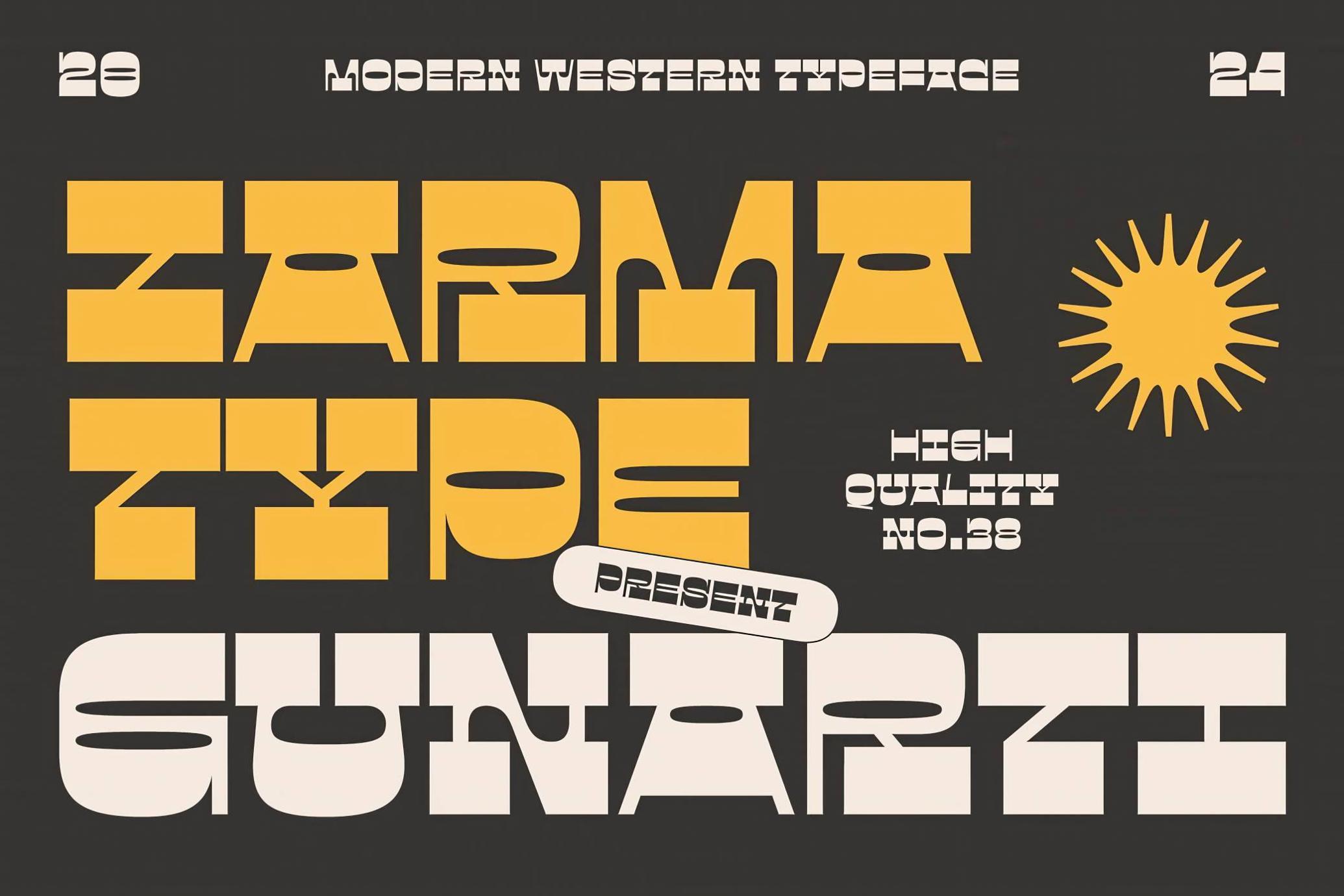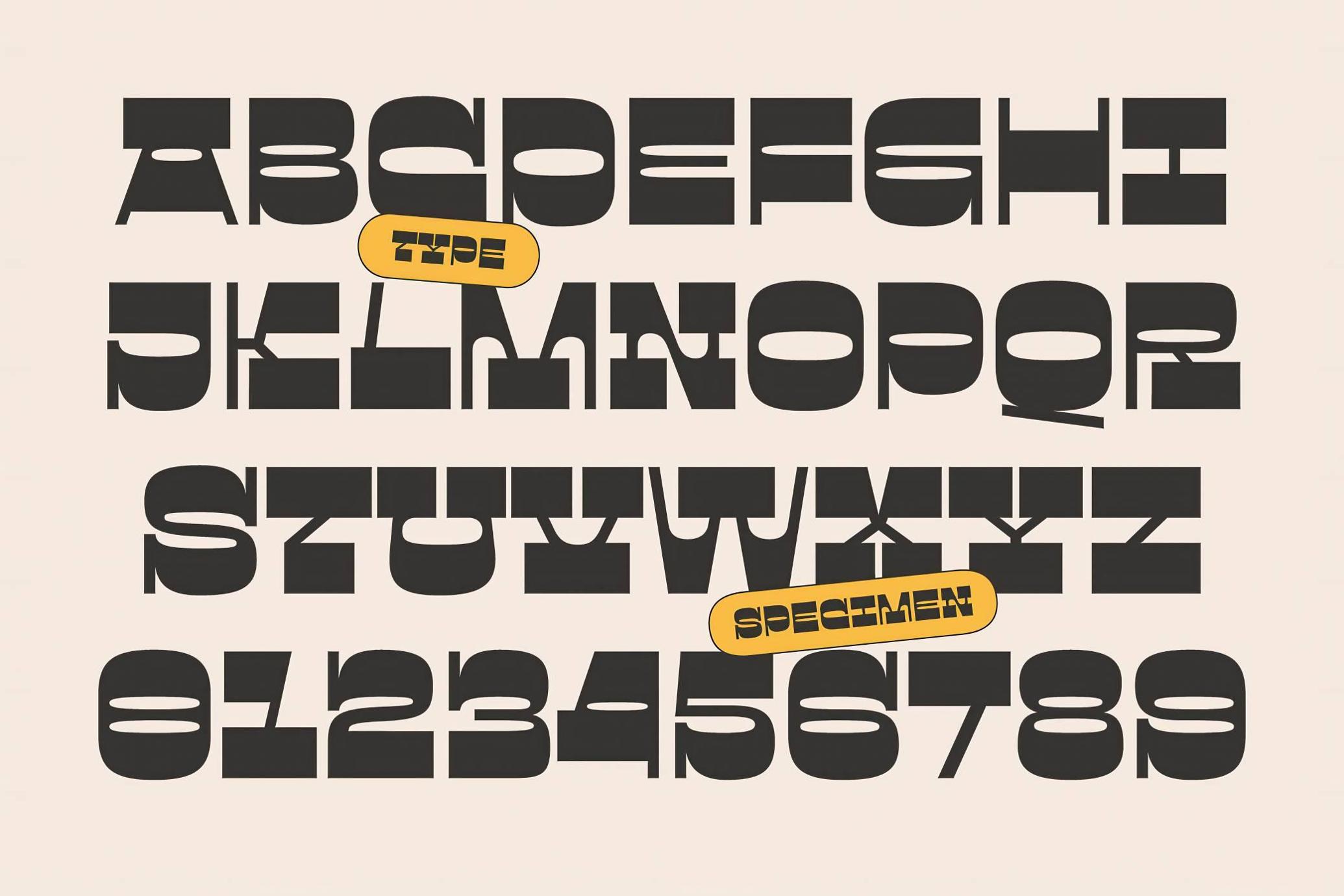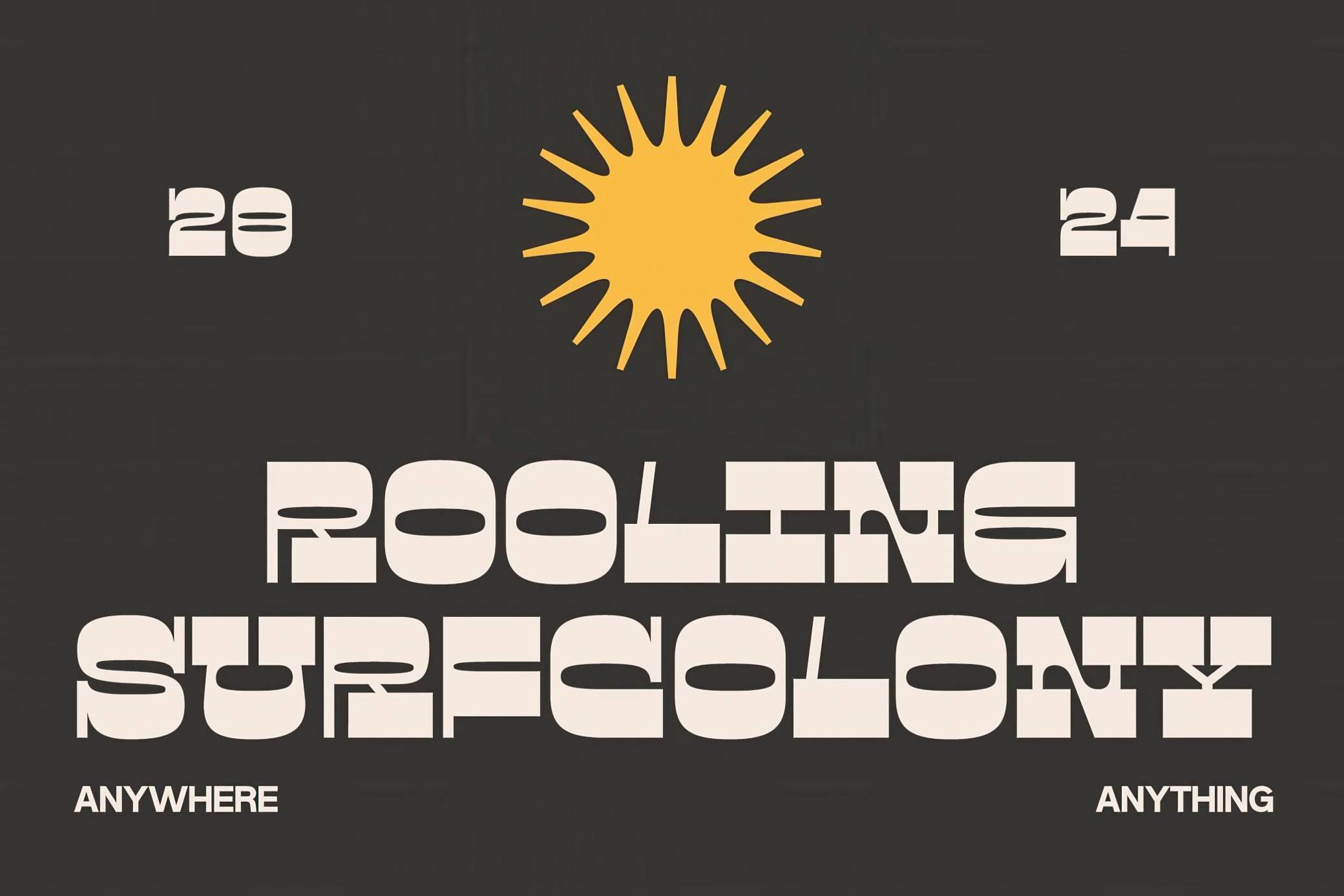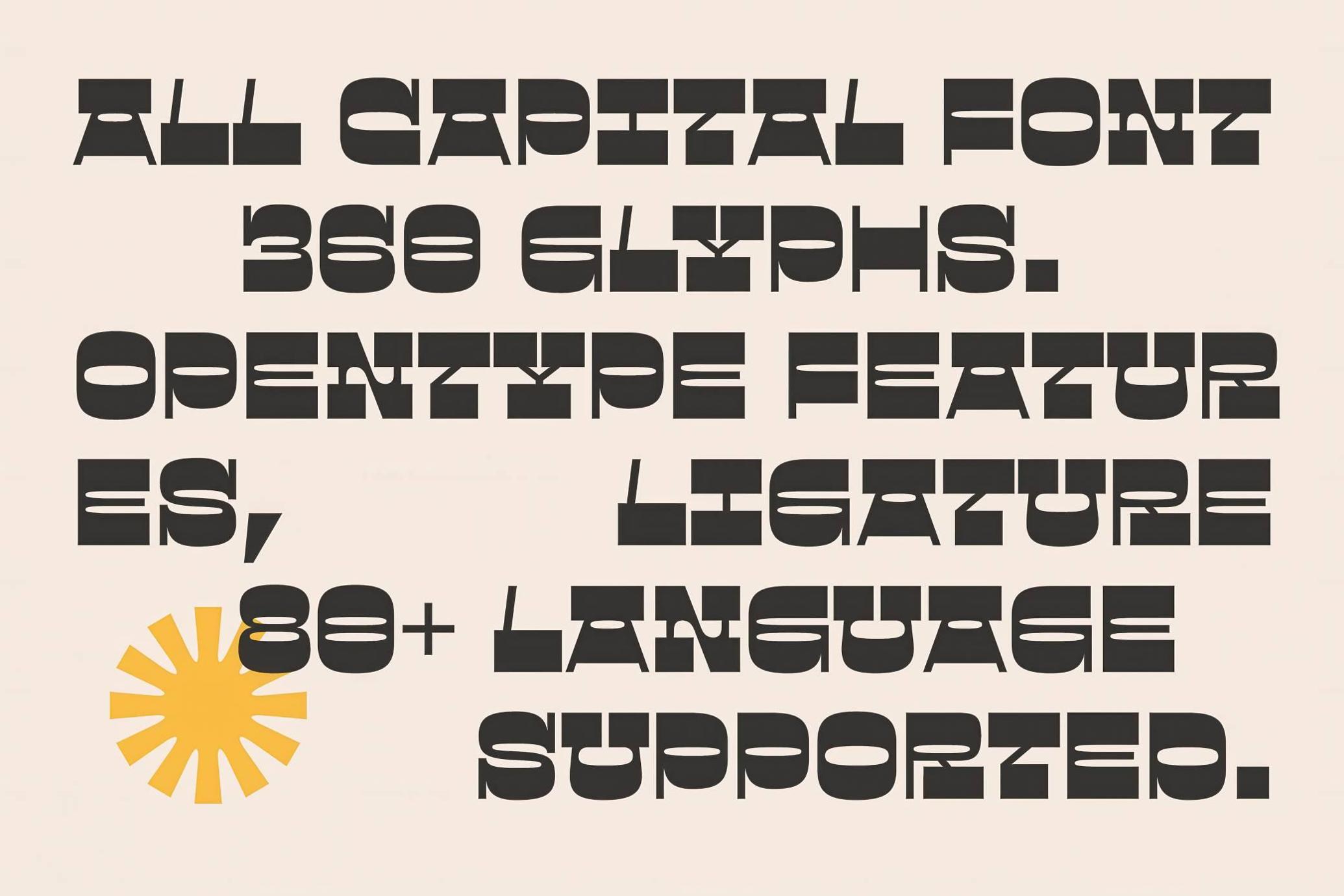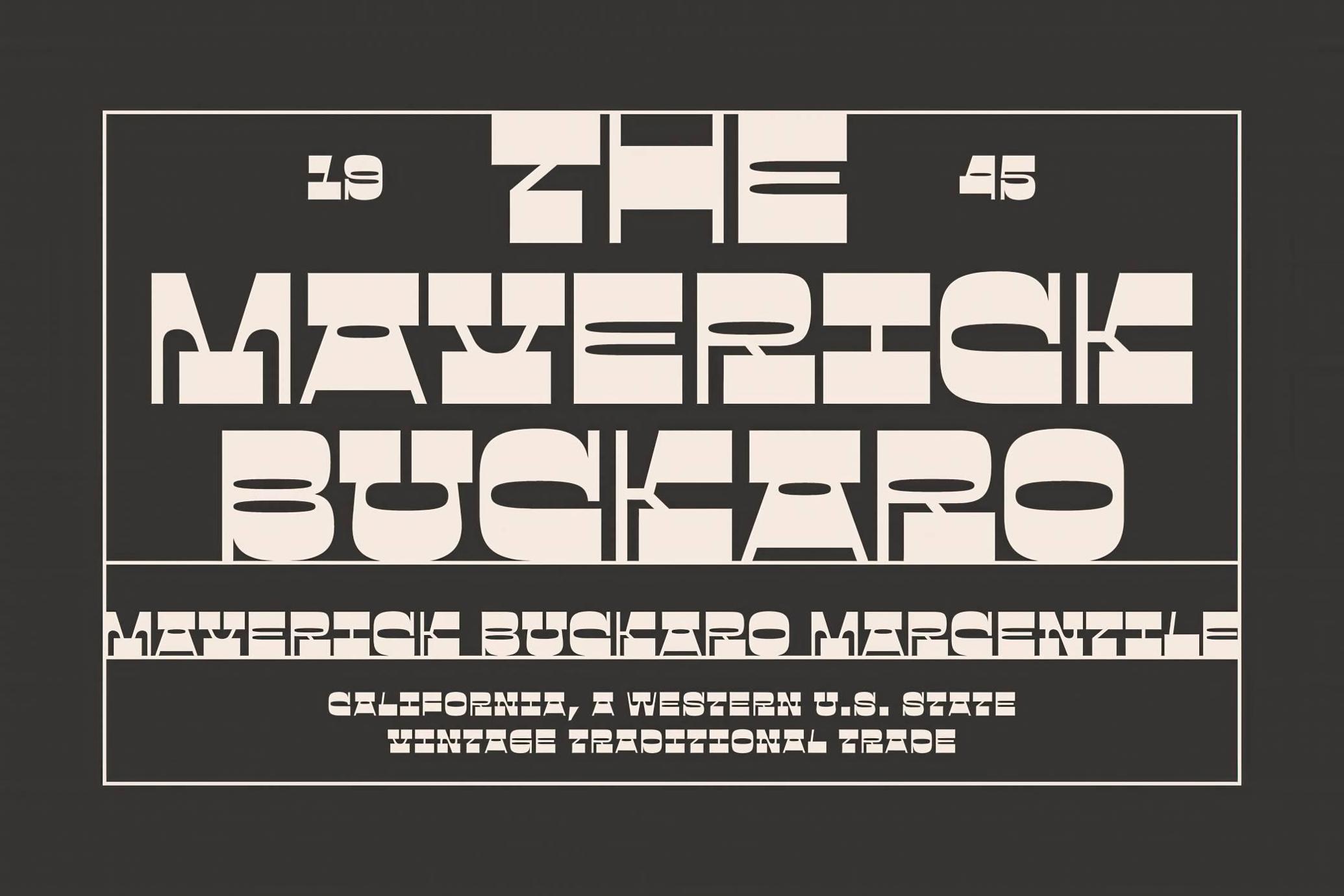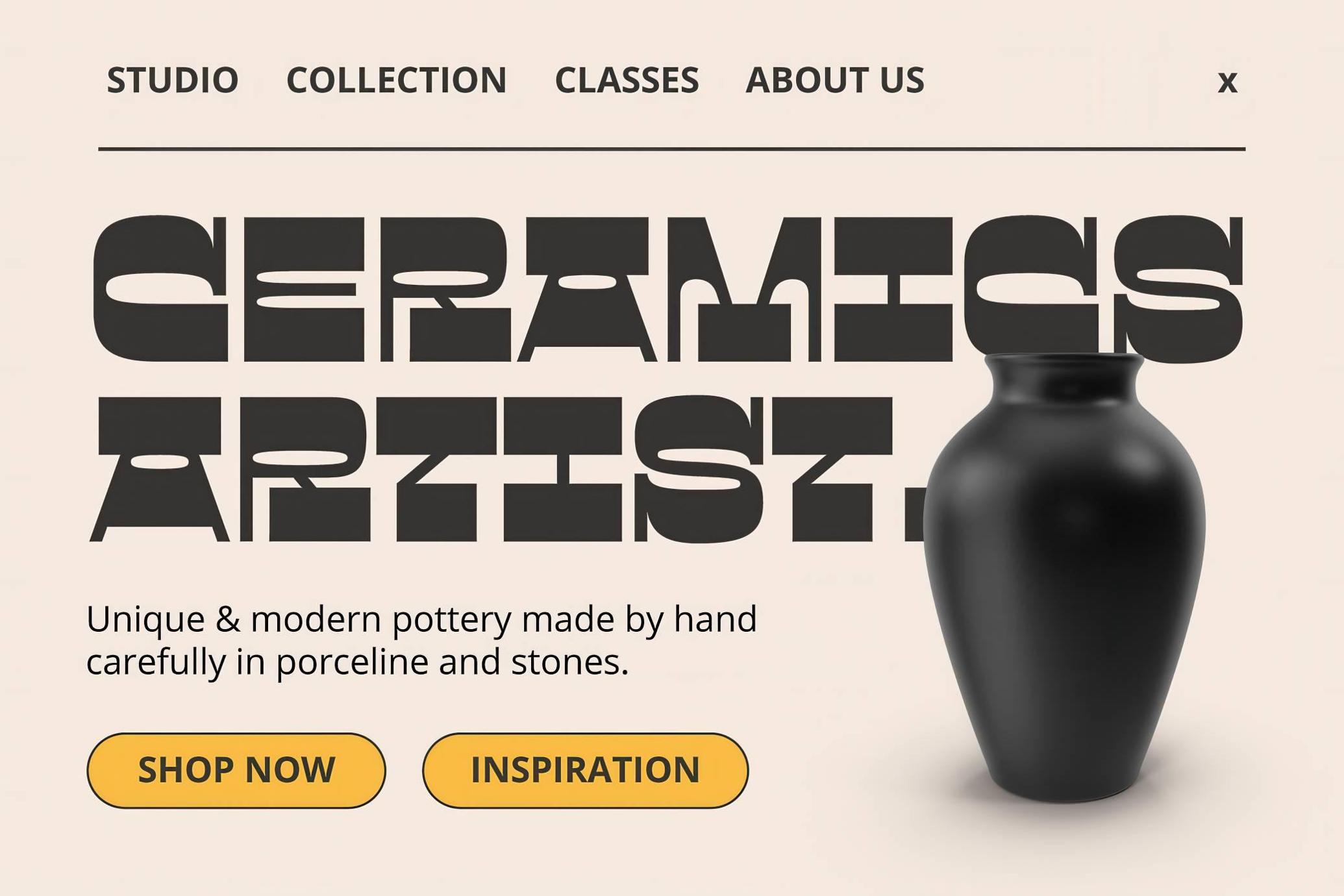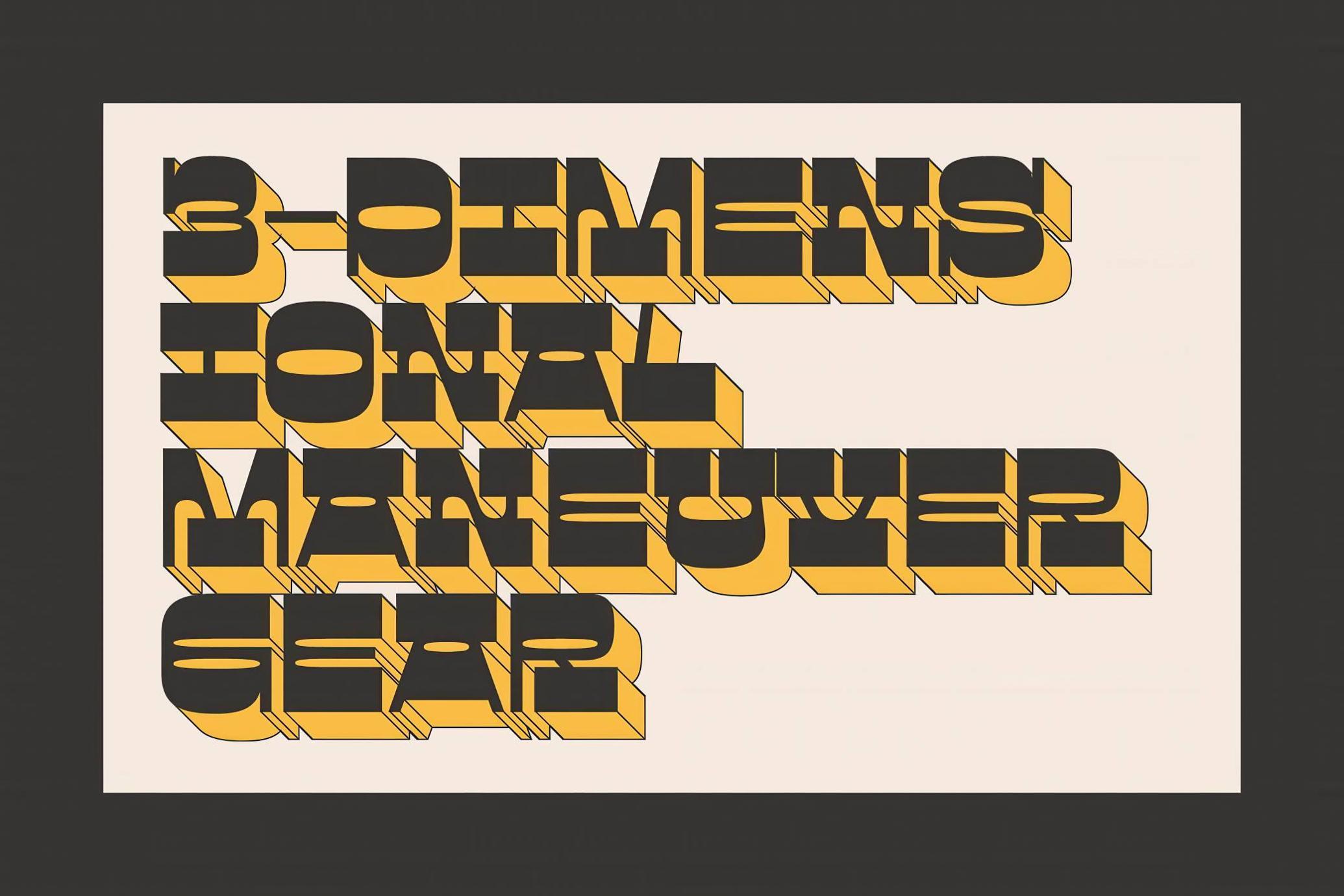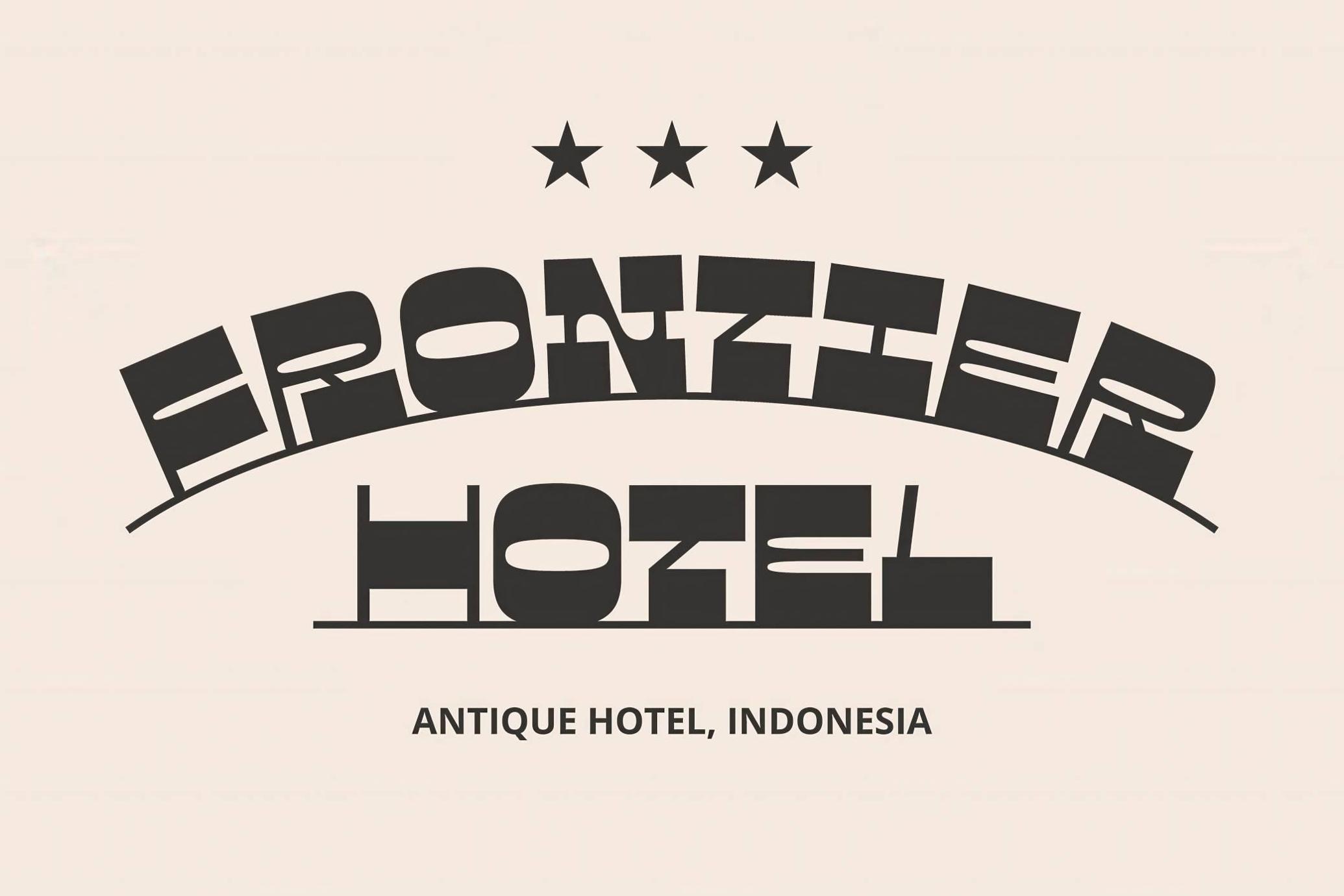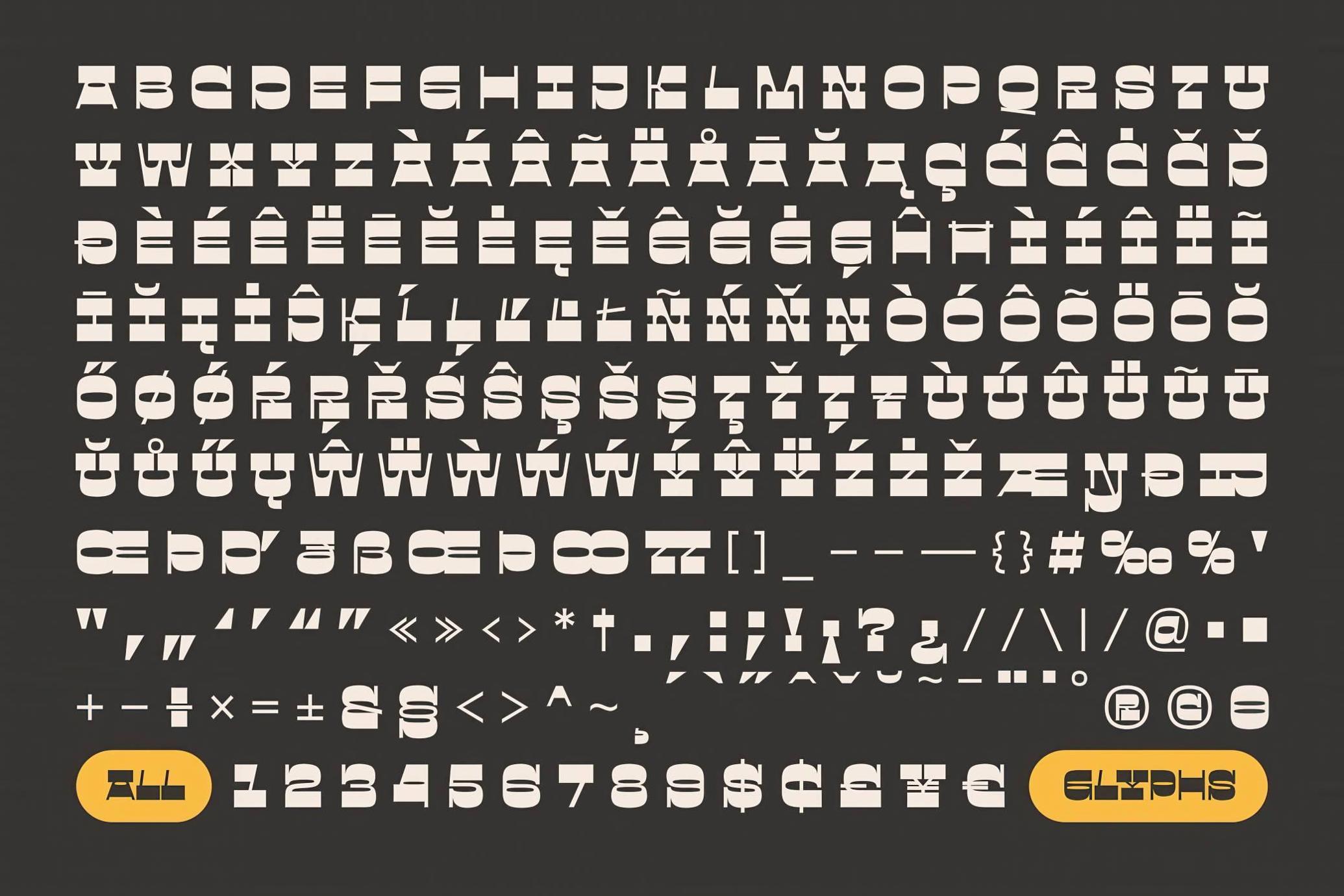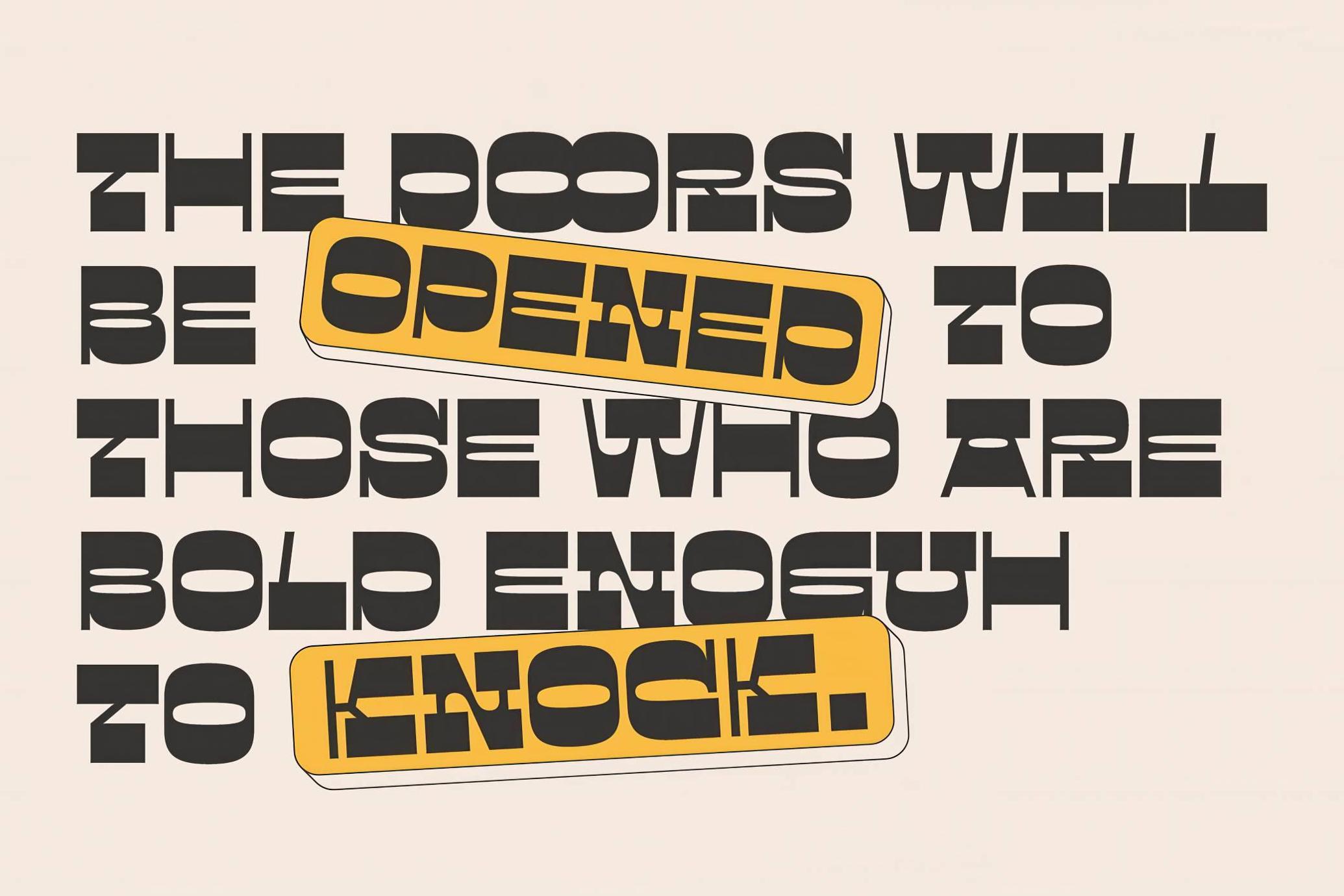
Gunarti Wide Western Font
If Yosemite Sam opened a tiki bar and hired Betty Boop as his brand strategist, Gunarti would be the typeface etched into every neon sign, coaster, and bottle label. It’s all swagger and no apologies — a wide Western slab serif that flips the contrast script, stuffs in a few cartoon quirks, and looks like a silent film villain with a flair for modern design.
The chunky strokes and rubber-hose curves feel right at home in vintage animations, spirit bottle labels, or branding that wants to feel ironic without breaking a sweat. With 360 glyphs, extended Latin support, and OpenType features, Gunarti speaks over 85 languages — and probably yells in most of them as you get it inside headlines, logos, and other loudmouth design moments.